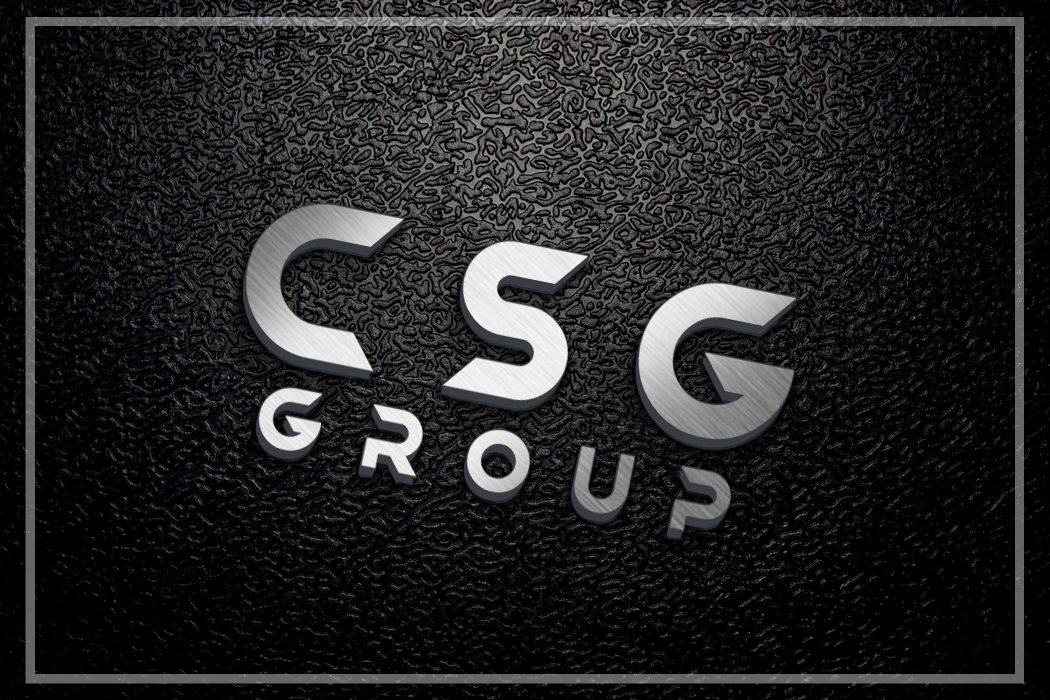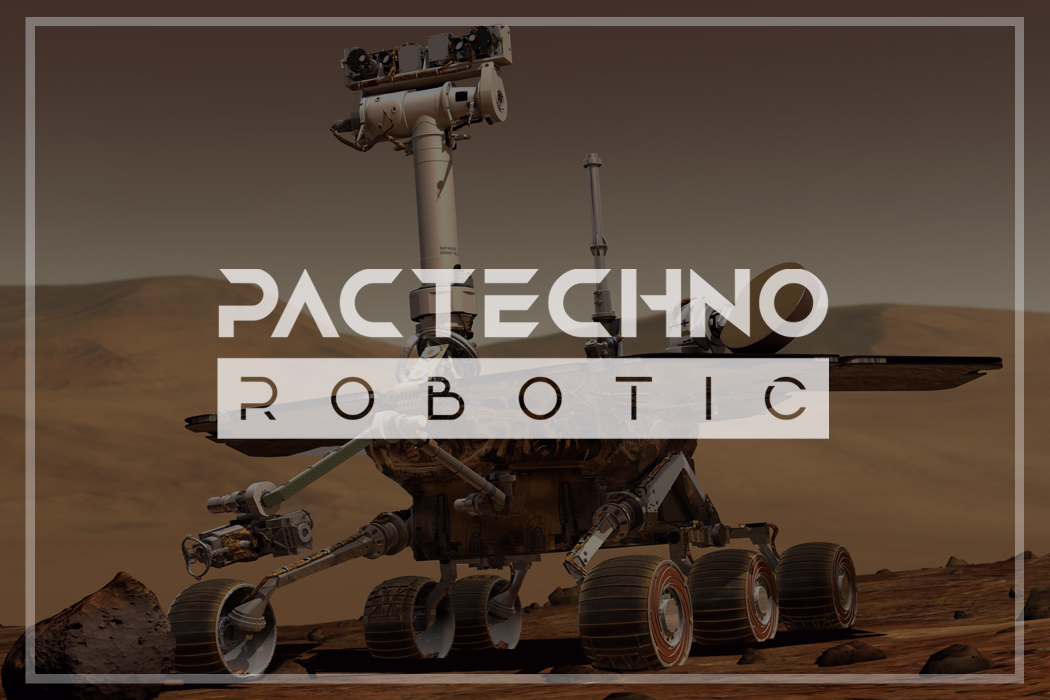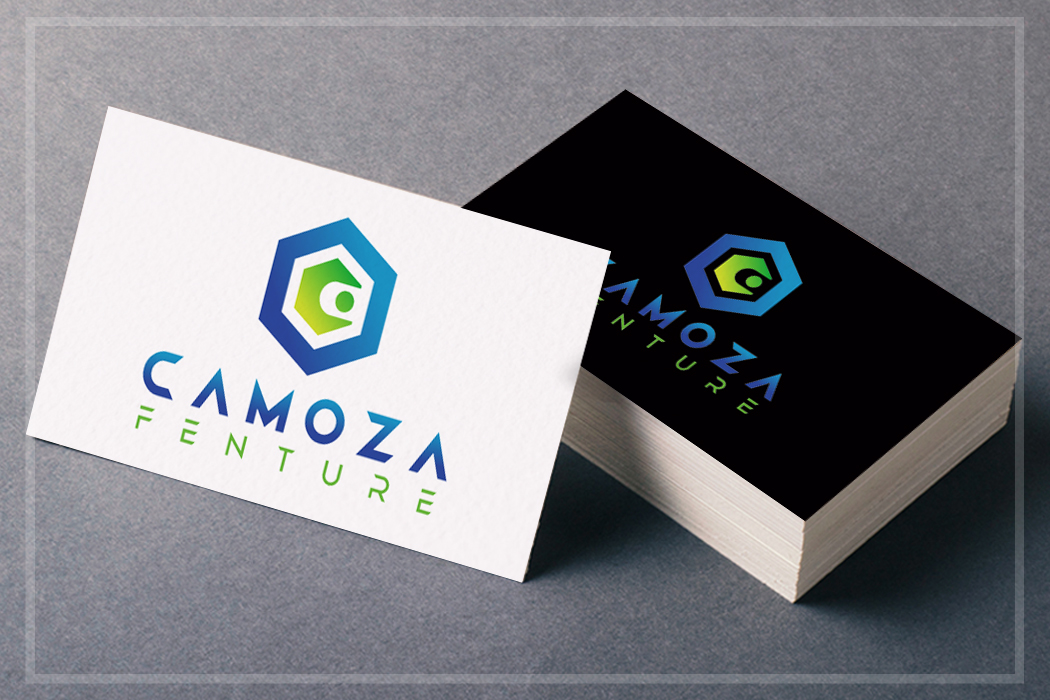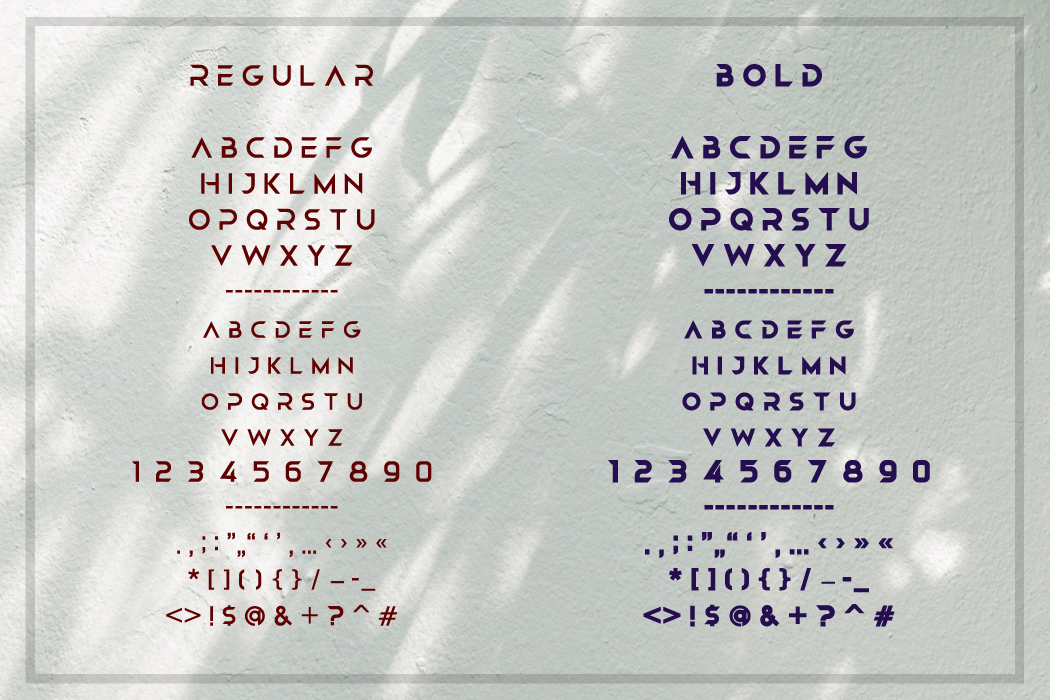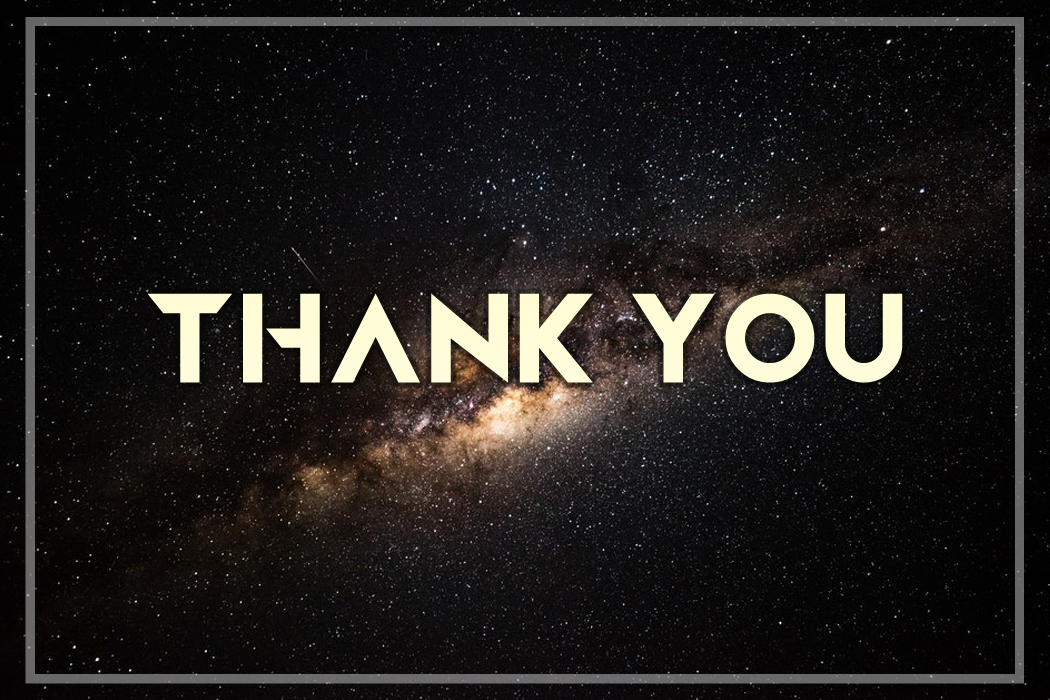
Rintexy Font
RINTEXY is a modern and geometric typeface.Simple and strong look.
Suitable and great for your modern logo design, headline, letterheads, etc.
- Regular and Bold types